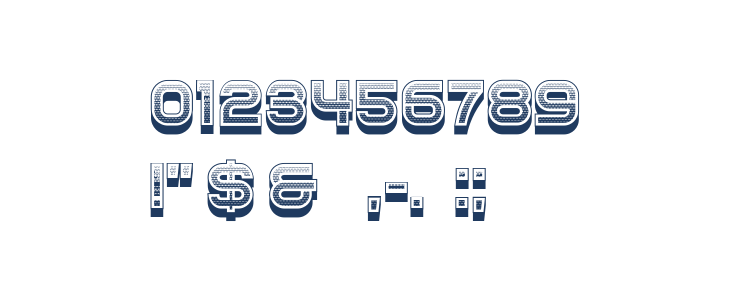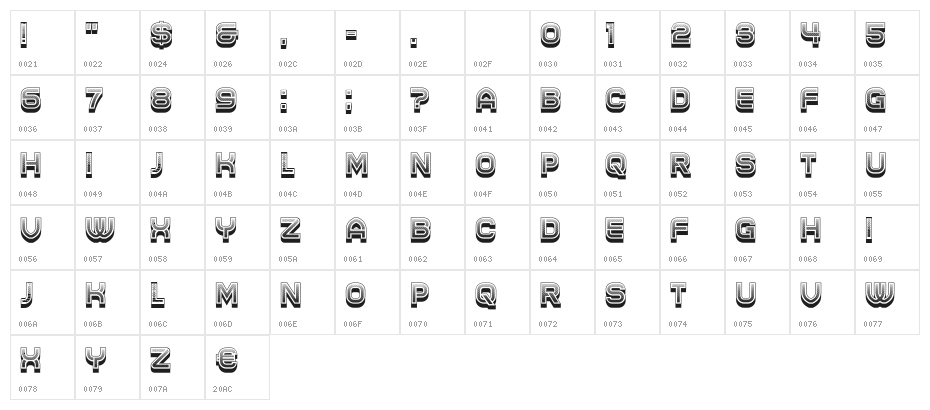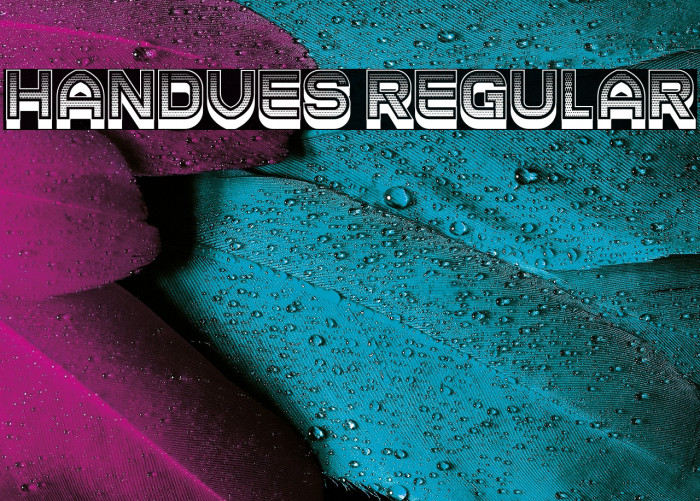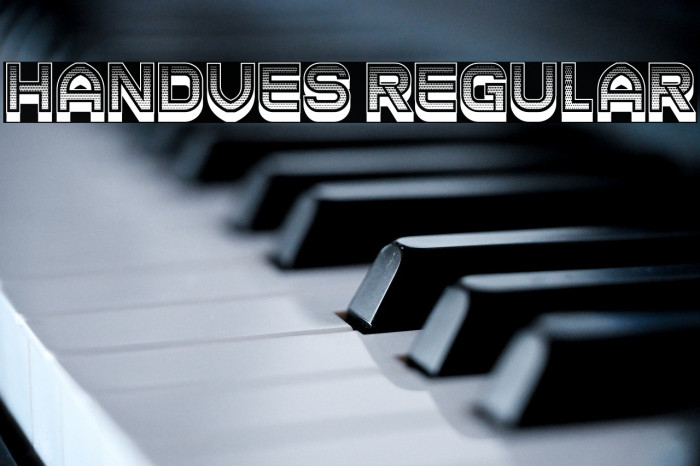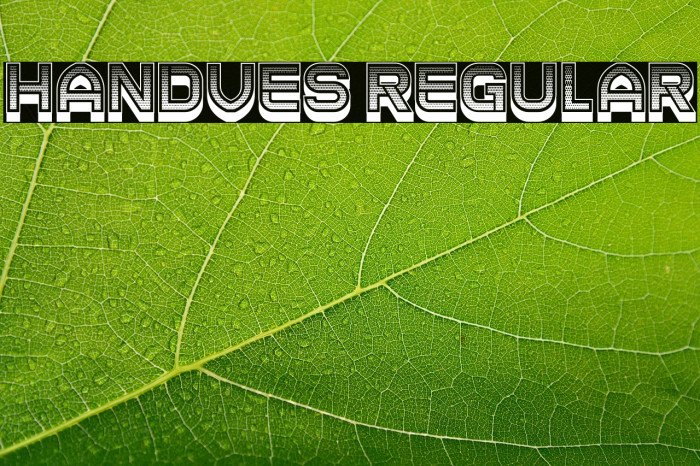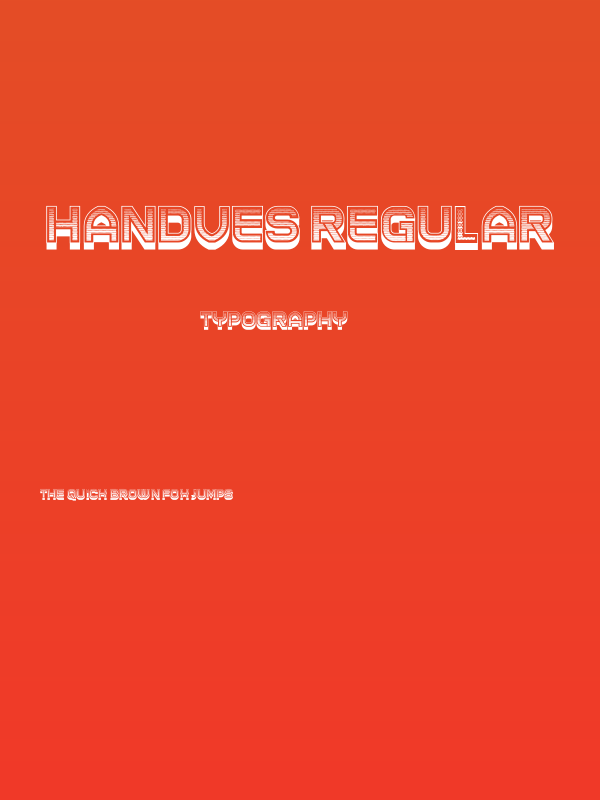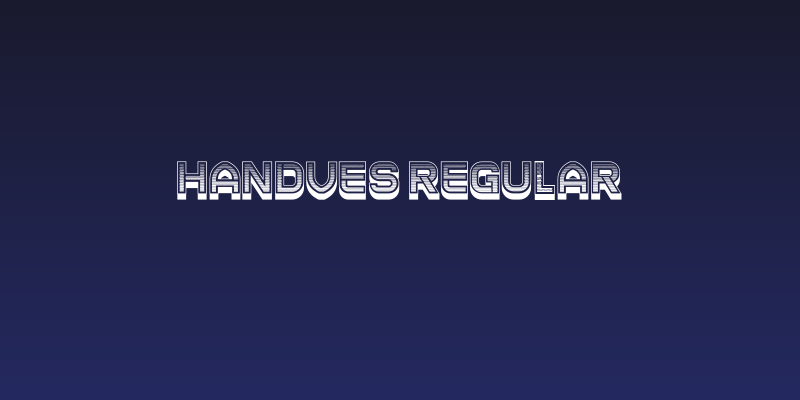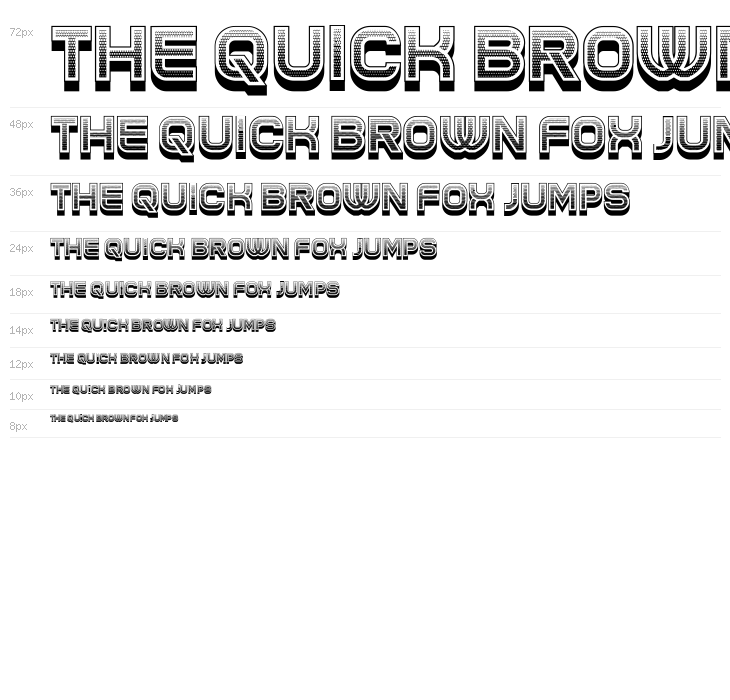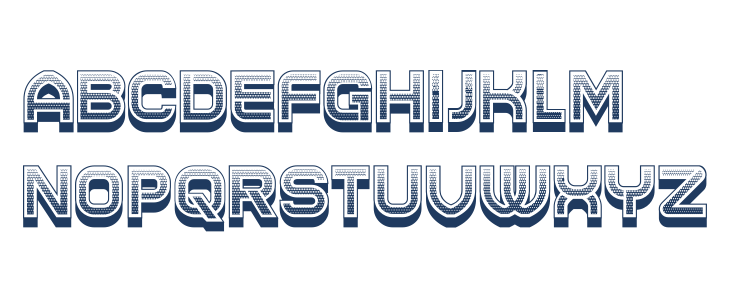
Handves Regular Font
Handves Regular Description
This font features a bold, decorative style with a distinct 3D effect created by a shadow and dotted texture within each character. The uppercase letters are prominent and eye-catching, making them ideal for attention-grabbing designs. The numbers and special characters maintain the same stylistic elements, ensuring consistency across all glyphs. The font's unique design is suitable for projects that require a strong visual impact, such as posters, headlines, and branding materials.
| Proposed Projects | Ideal for posters, headlines, branding, and any design needing a bold visual impact. |